Typography continues to evolve, blending functionality with creativity to meet the needs of modern designers. This February 2025, we’re witnessing a remarkable wave of examples of typography that push boundaries while addressing practical design challenges. From experimental modularity to enhanced accessibility, these releases highlight how typefaces can serve as both tools and artistic expressions.
This month’s collection spans a wide range of styles, showcasing the versatility of contemporary type design. Whether it’s long-term projects like Typonym’s seven-year journey with Marsam or rapid-response innovations like the expansion of Inclusive Sans, each release reflects the dynamic interplay between tradition and innovation. Cultural influences also shine through, as seen in Pangram Pangram’s Model, inspired by Japanese model kits. Let’s explore seven standout typefaces that exemplify the best of creative typography designs this month.
1. Inclusive Sans by Olivia King
Accessibility takes center stage with Inclusive Sans 2.0, a groundbreaking update to this widely-used Google Fonts favorite. With over 1.25 million API servers in a single week, its impact on everyday typography is undeniable. Olivia King has expanded the family with new weights—from Light to Bold—and introduced a variable font option for ultimate flexibility.
Built with accessibility in design in mind, Inclusive Sans maintains its neo-grotesque foundation while incorporating thoughtful features that enhance readability. Its refined details make it an excellent choice for both digital interfaces and print applications, proving that functional typefaces can still be visually appealing.
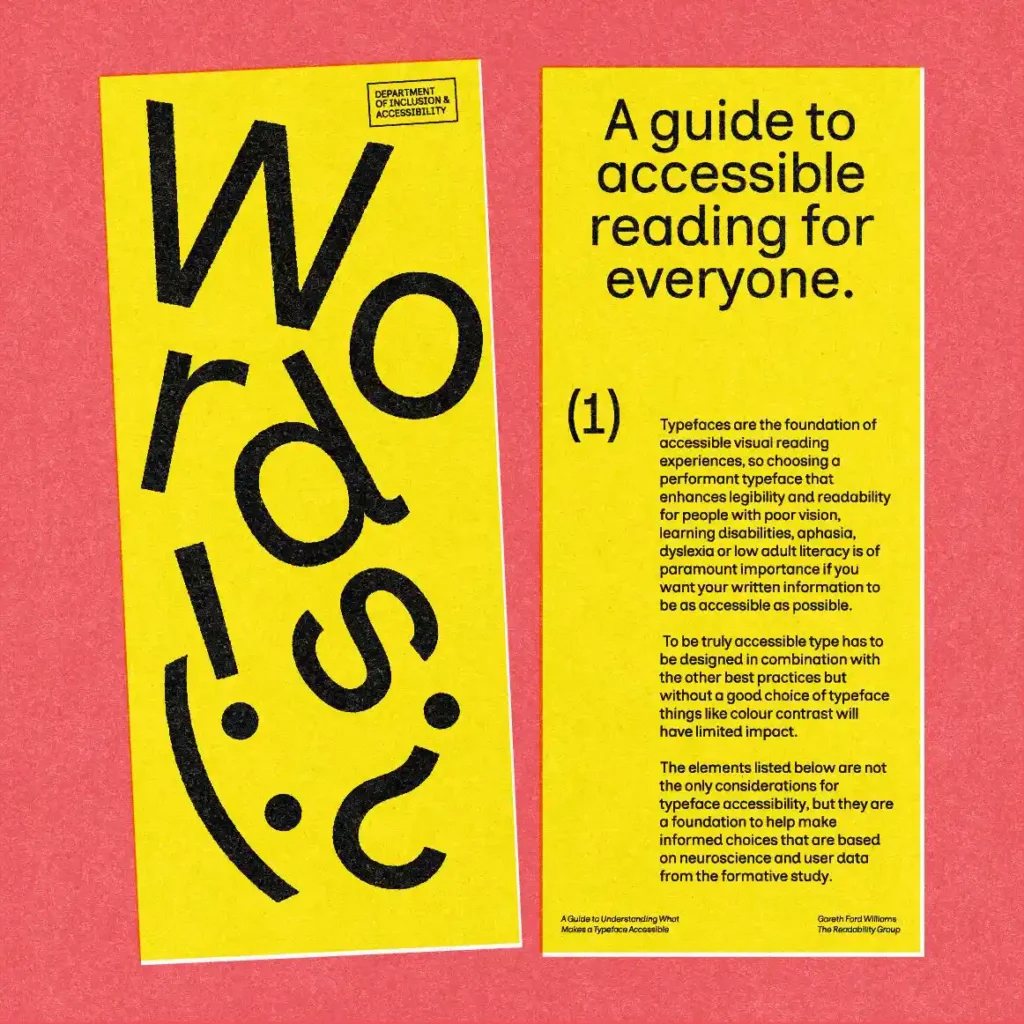
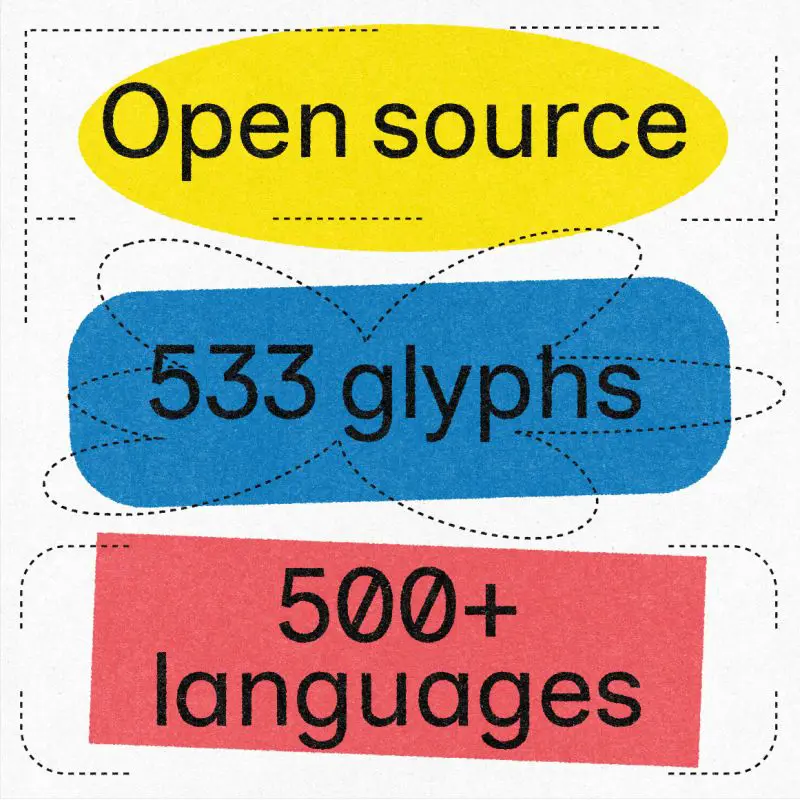
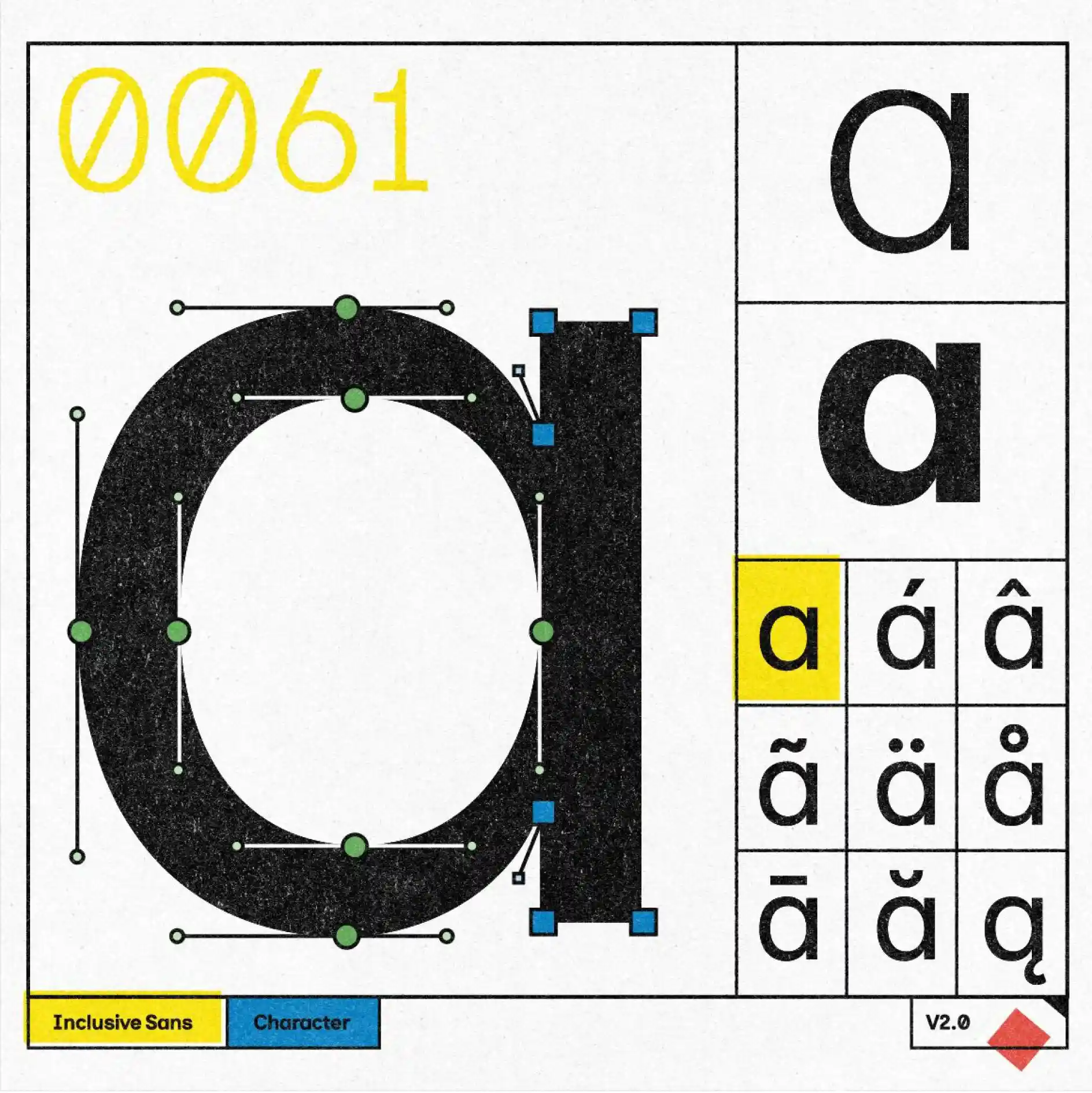
2. Marsam by Typonym
After seven years of meticulous development, Marsam redefines the slab serif genre with its modernist interpretation. This 20-font family bridges the gap between traditional Clarendons and stern neo-grotesque slab serifs, offering a fresh take on classic forms.
The attention to detail is evident in glyphs like the a, c, g, r, and s, as well as the numerals. True cursive italics (rather than slanted romans) add elegance, while Marsam’s seamless pairing with sans-serif Newsam makes it a versatile addition to any designer’s toolkit. This typeface is perfect for branding applications, where clarity and sophistication are key.
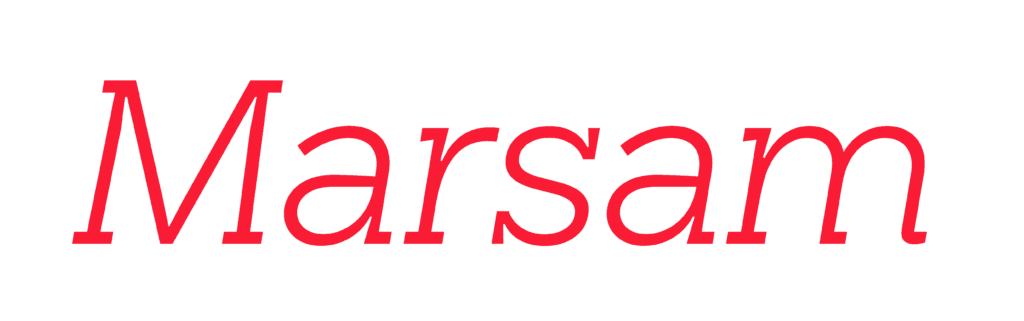
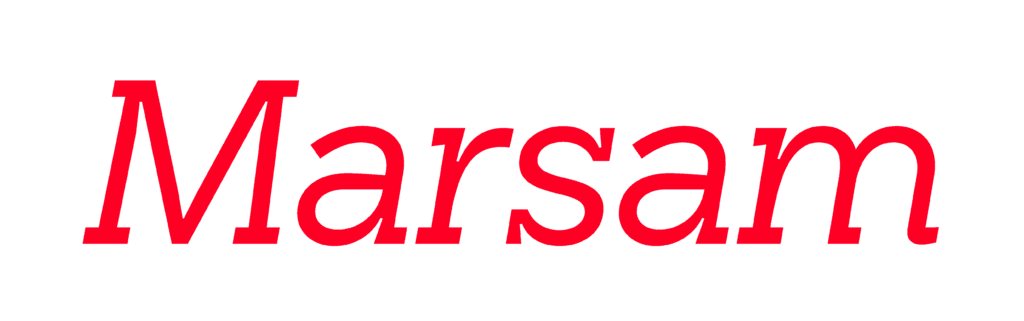
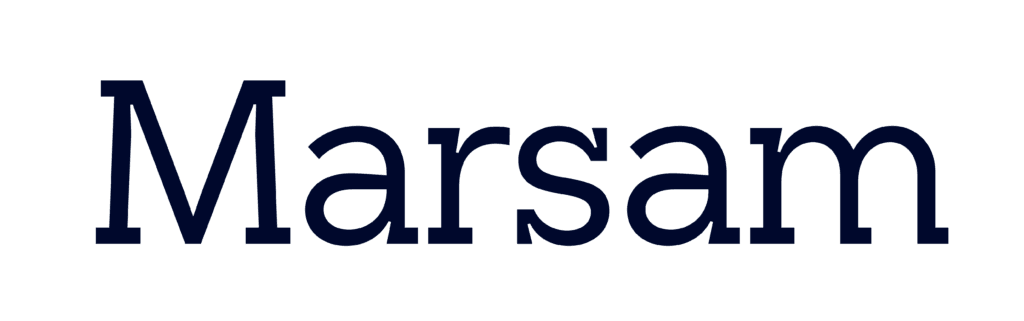
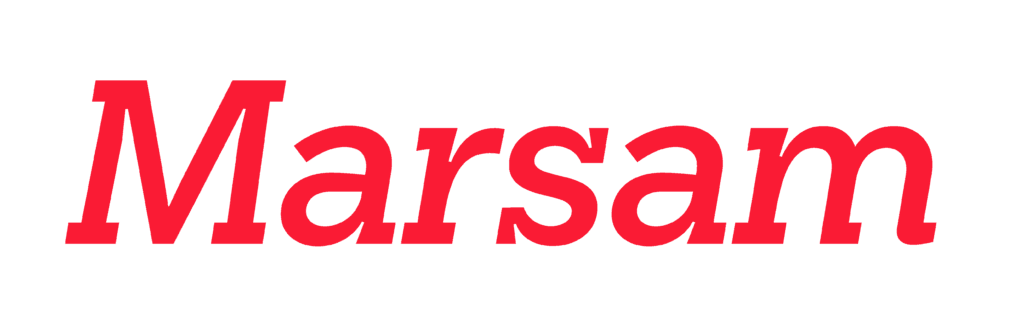
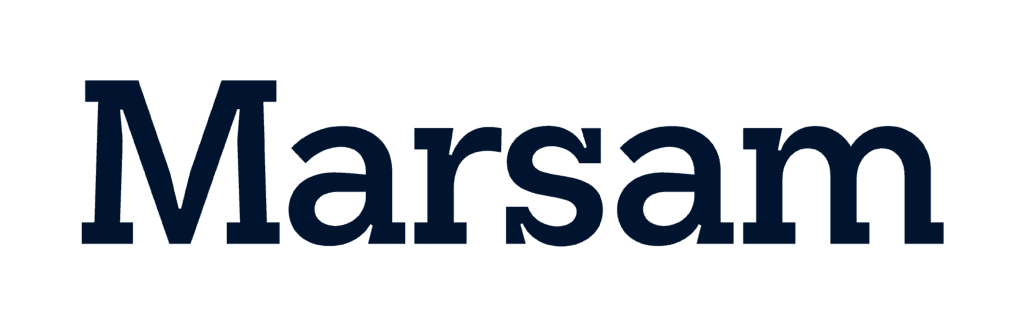
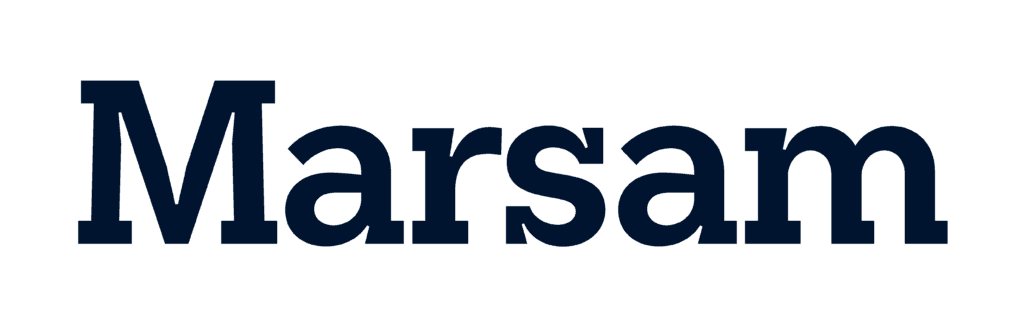
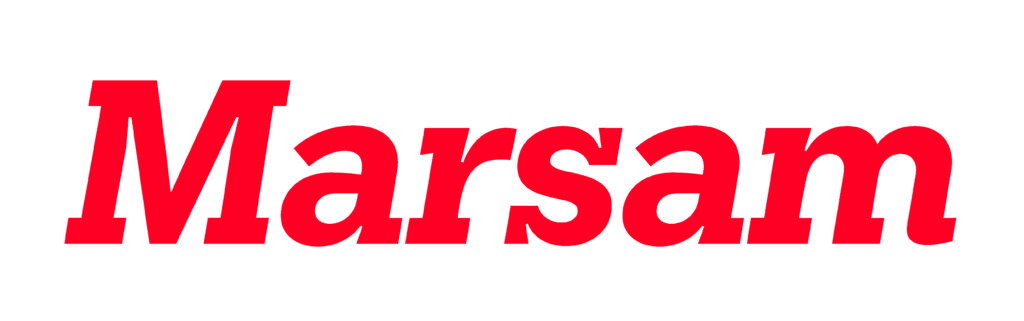
3. Resonay Text by TypeMates
Andrej Dieneš introduces Resonay Text, a sophisticated text face that marries calligraphic expression with contemporary functionality. Inspired by stone-cut lettering, this typeface is ideal for literary works, poetry, and editorial design.
With over 2,000 glyphs per weight and support for more than 200 Latin languages, Resonay Text is remarkably comprehensive. Its 200+ ligatures, true small caps, and context-sensitive punctuation provide unparalleled typographic control. For designers seeking fonts for designers who value precision and elegance, Resonay Text is a must-have.
4. Cedrat by Formagari
Emmanuel Besse draws inspiration from historical typefaces, reimagining them for modern use in Cedrat. This extensive family spans three optical sizes—Display, Standard, and Text—each offering six weights with matching italics.
Rather than simply digitizing old forms, Besse refines the design while preserving its distinctive character. The italics, influenced by Times and ITC Caslon 223, add a unique touch. Cedrat’s versatility makes it suitable for both display and text-heavy projects, making it a valuable asset for brand typeface development.
5. Lettra Mono by Pangram Pangram
Lettra Mono combines the uniformity of monospaced fonts with the visual interest of botanical illustrations. Its strong vertical contrast and diamond-shaped details set it apart from conventional monospaced designs.
Available in eight weights with matching italics, Lettra Mono includes experimental alternates and unconventional ligatures. Its consistent weight distribution ensures functionality, whether used for technical documentation or creative display work. This typeface is a prime example of creative typography designs that balance form and function.
6. Model by Pangram Pangram
Inspired by the precision of Japanese model kits, particularly those from Tamiya, Model translates mechanical aesthetics into typography. This ambitious project encompasses four distinct families, including monospaced variants and experimental ‘Plastic’ styles, totaling 72 fonts.
Beyond its aesthetic appeal, the Model incorporates practical features like Latin, Hiragana, and Katakana support, as well as specialized measurement characters. Its modular forms and mechanical precision make it ideal for technical documentation, industrial design, and branding applications.
From enhancing accessibility in design to exploring new avenues in branding applications, these typefaces remind us why typography remains a cornerstone of visual communication. Explore these releases and discover how they can transform your next project.